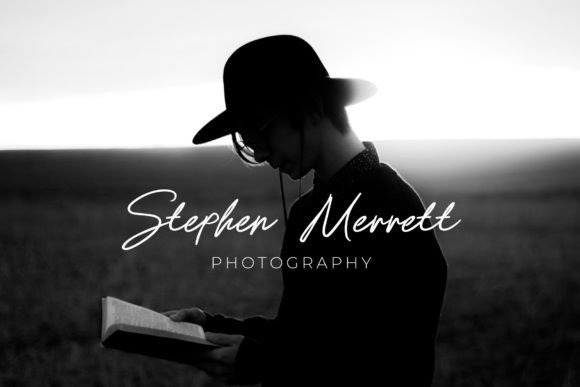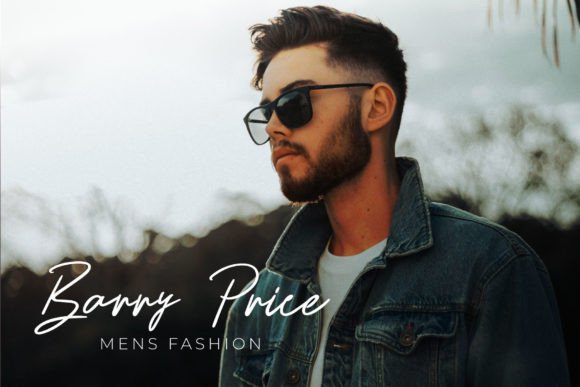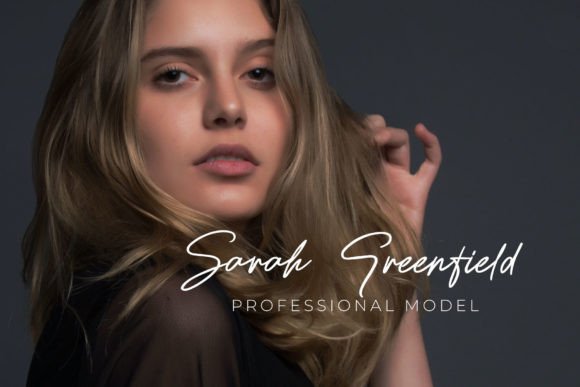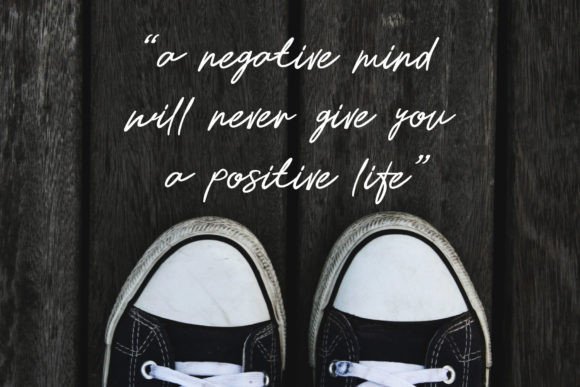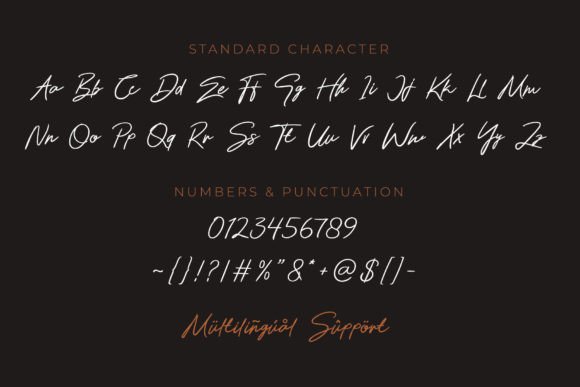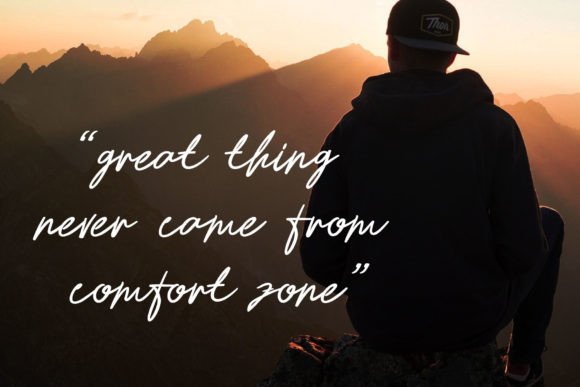
Introduction to Hettagio Font
One such font that has been making waves in the design community is the Hettagio Font. This dazzling script font is a treasure trove of creativity, waiting to be unleashed on your next project. With its intricate details and elegant lines, the Hettagio Font is a valuable resource for any designer looking to add a touch of sophistication to their work.
- Unique, stylish design that can add a touch of elegance and sophistication to any creative project.
- Perfect for use in logos, typography, and other design elements where a high-quality font is required.
Honest Review: Hettagio Font
I recently stumbled upon the Hettagio Font and I must say it’s a great addition to any design resource collection. This high-quality font is perfect for creative projects that require a unique touch.
- ✨ Unique and stylish design that catches the eye
However, I do have to mention some limitations:
- ⚠️ Limited character set, which may not be ideal for extensive text-based projects
- ⚠️ May not be suitable for all types of designs, such as professional or corporate materials
Overall, I’m impressed with the Hettagio Font and I think it’s a great choice for creative projects that require a bit of flair. It’s a high-quality design resource that’s definitely worth checking out, especially for those on a budget.
Common Use Cases for Hettagio Font
The Hettagio Font is perfect for:
1. Creating eye-catching social media graphics.
2. Designing engaging blog posts and articles.
3. Developing brand identities and logos.